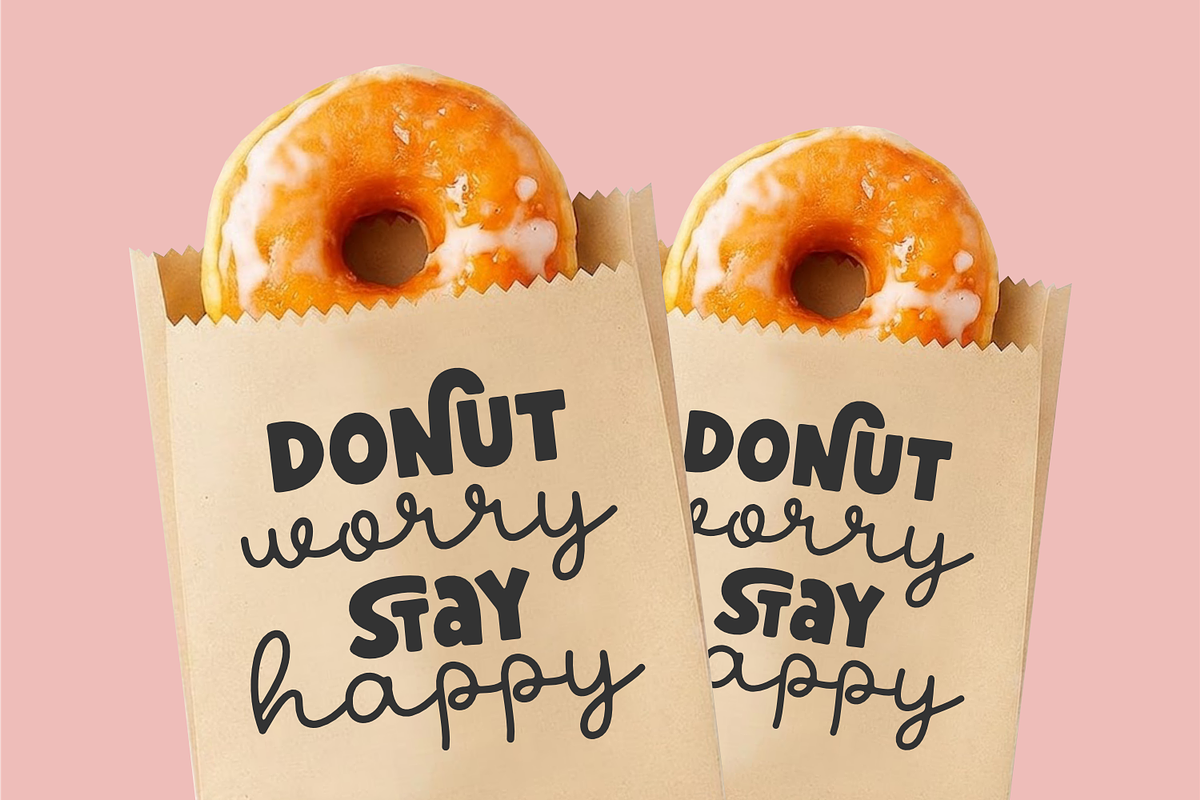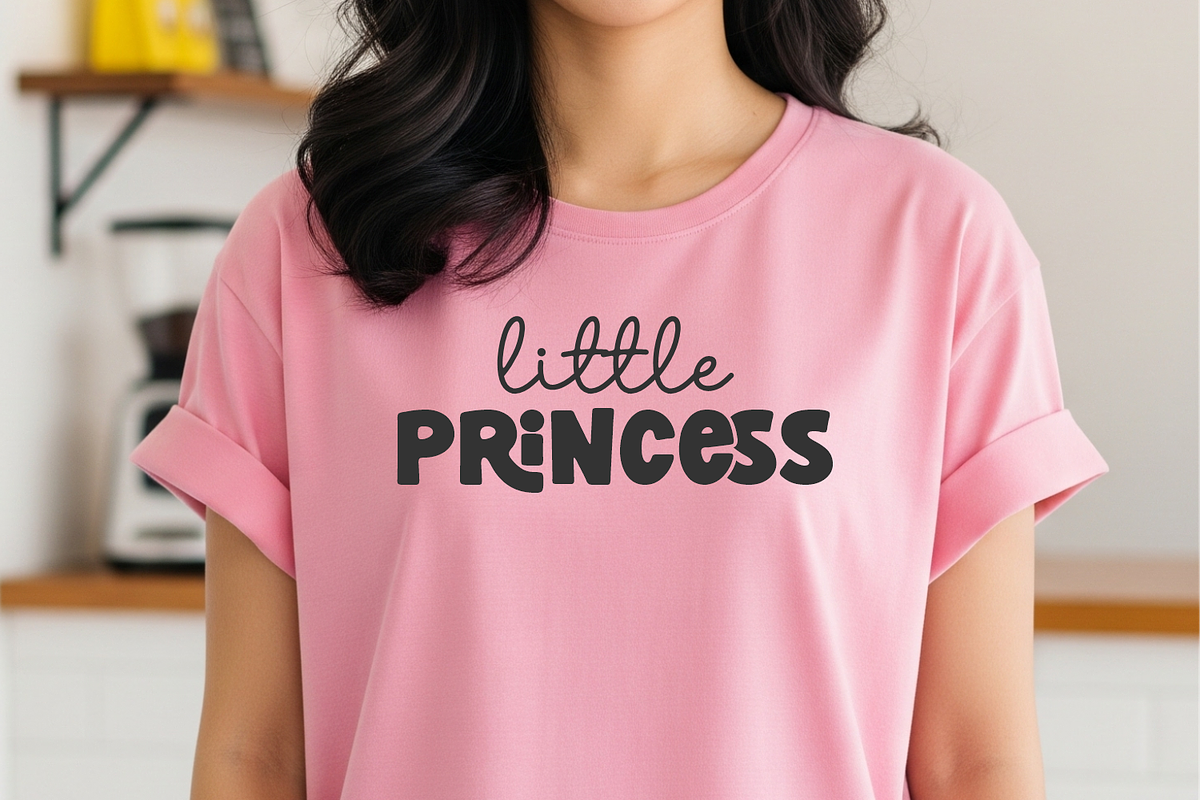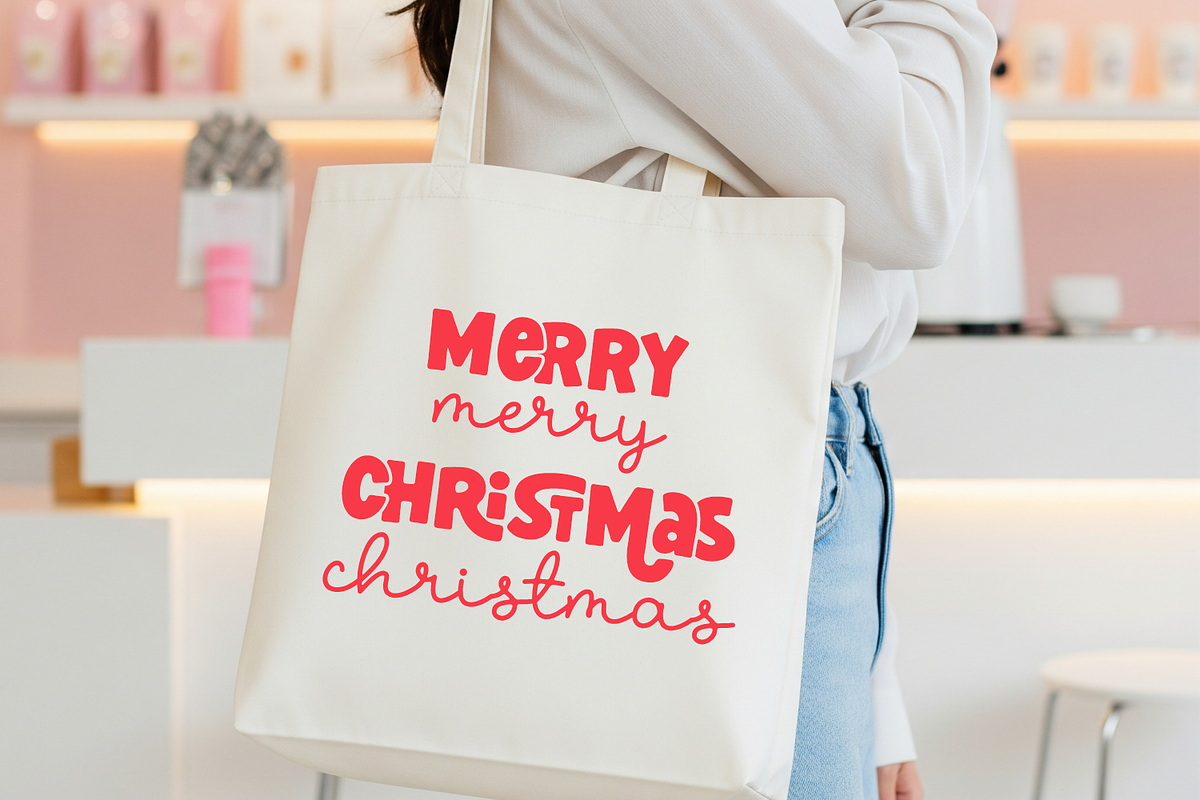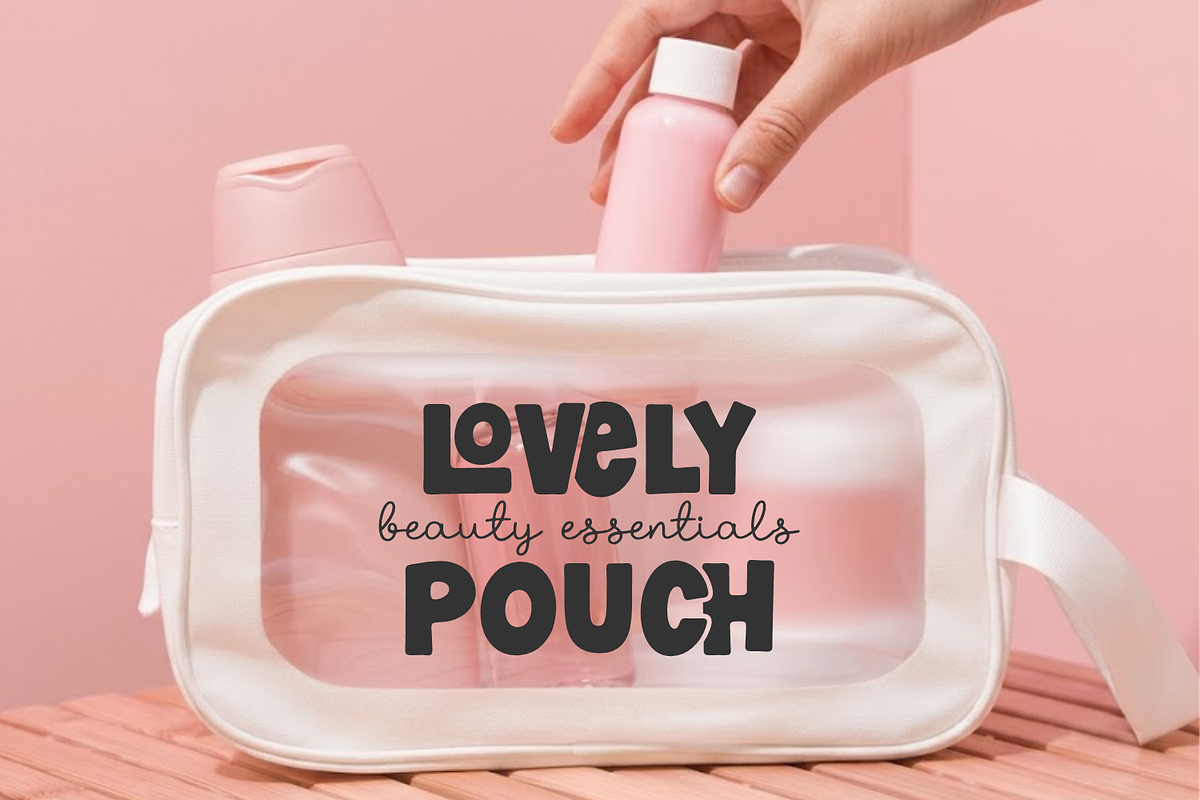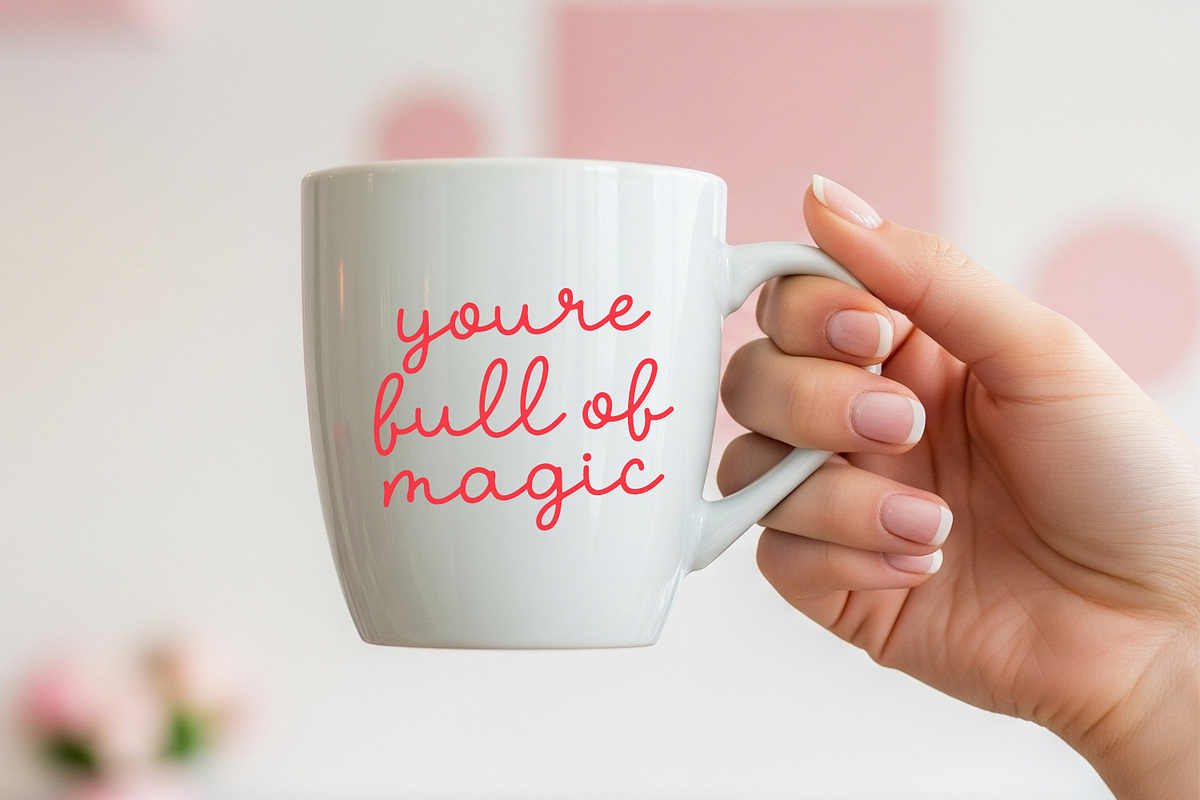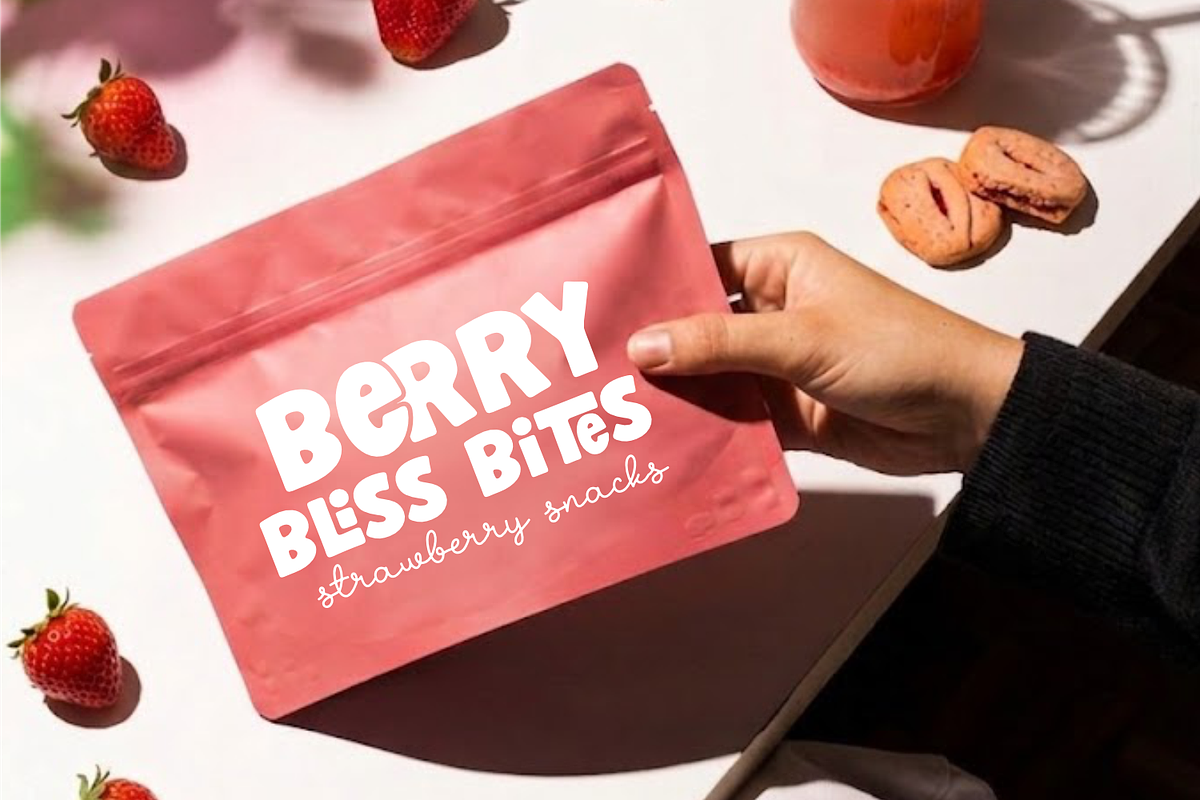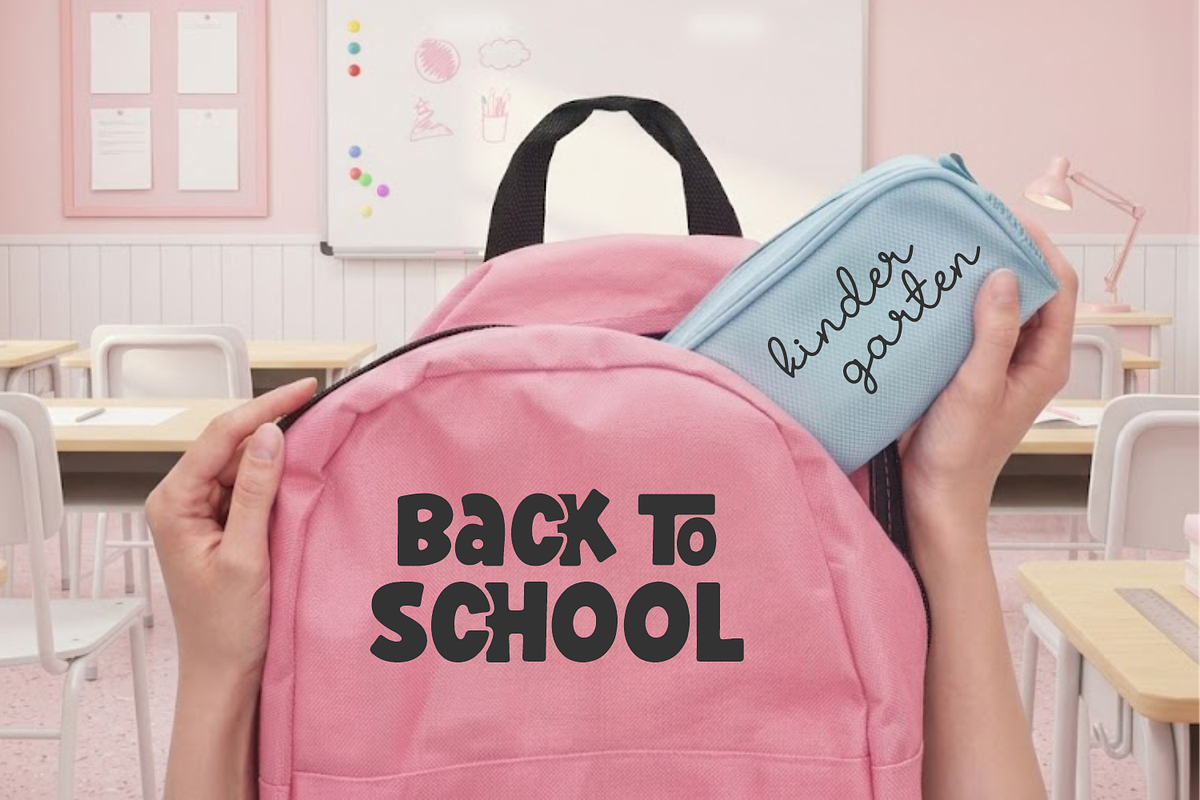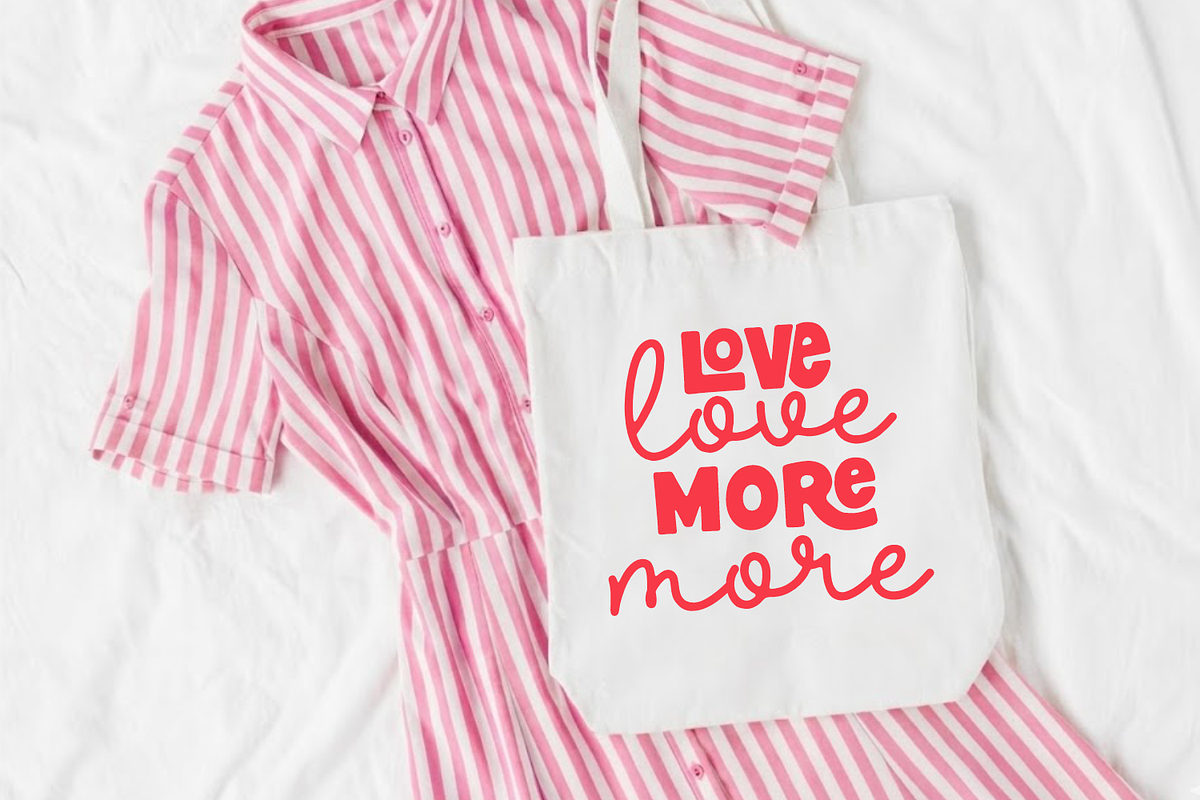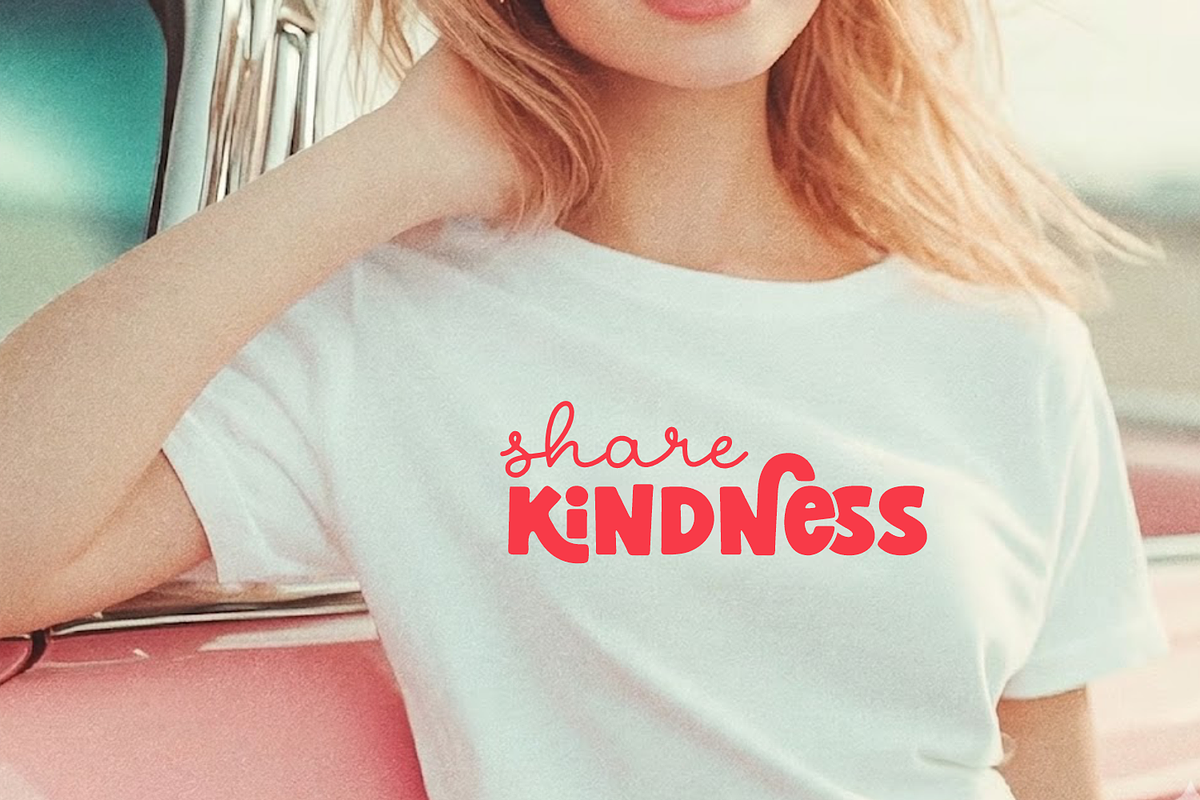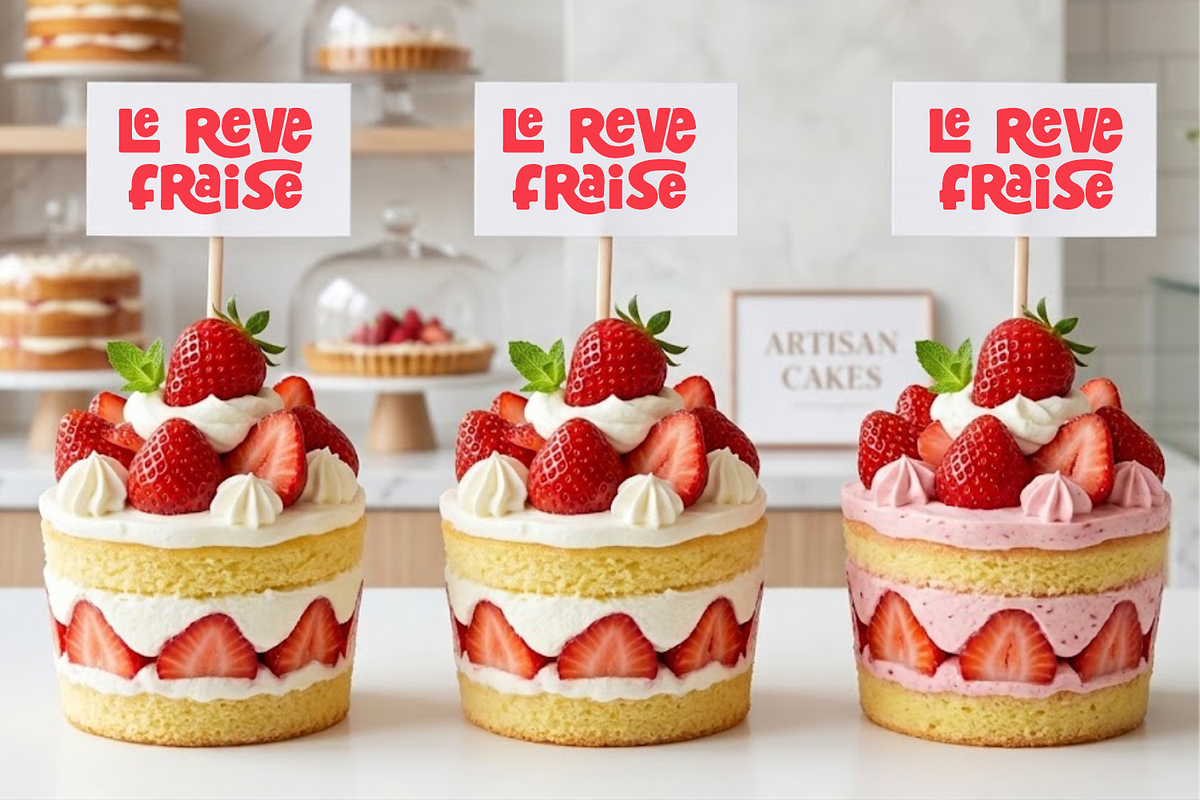
Shortcake Strawberry - Font Duo
Shortcake Strawberry – A Sweet & Playful Font Duo Add a burst of joy and sweetness to your creative projects with Shortcake Strawberry, a delightfully bubbly and hand-drawn font designed to make your designs pop. With its soft, rounded edges and organic letterforms, this typeface captures a kawaii aesthetic that is both friendly and undeniably eye catching.
Shortcake Strawberry comes in two versatile styles: Display Bold and Monoline Script. This duo allows for effortless layering and creative styling, giving you the flexibility to design anything from bold, high-impact headlines to subtle, decorative accents.
The chunky, balloon like weight of the characters provides a strong visual presence while maintaining a soft, approachable feel. Each character features subtle irregularities that provide an authentic, handcrafted touch, moving away from rigid, corporate typography. Despite its playful curves, the font is meticulously spaced to ensure your message remains clear and easy to read across various platforms.
Ideal for juice labels, snack brands, bakeries, and cafe menus, The perfect choice for toy packaging, kids apparel, storybooks, and birthday invitations, Create Instagram worthy, vinyl stickers, tote bags, and t-shirt slogans with an instant retro-modern vibe, Brighten up your social media feeds, YouTube thumbnails, and blog headers with a font that feels like a summer afternoon, Seasonal Campaigns From Summer Sales to festive holiday greetings, its adaptable personality fits any joyful occasion.